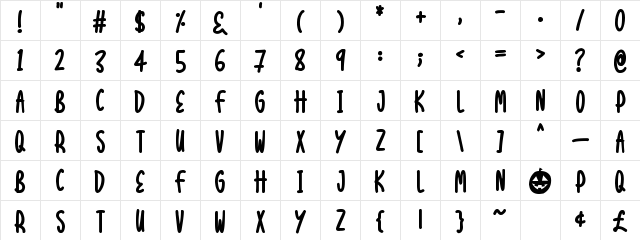
Halloween Treats Regular
Design Context for Halloween Treats
Halloween Treats is a composed and adaptable typeface that performs quietly and consistently across a wide range of design contexts.